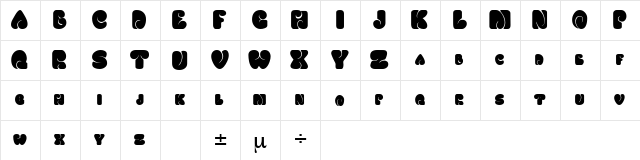
GranCanaries Regular
Design Context for GranCanaries Typeface
GranCanaries is a composed and adaptable typeface that performs quietly and consistently across a wide range of design contexts.